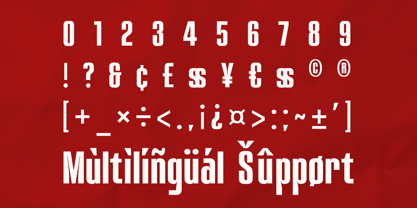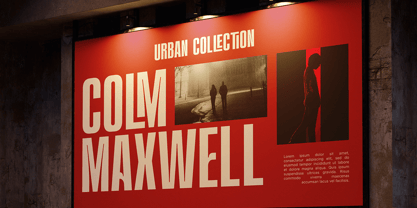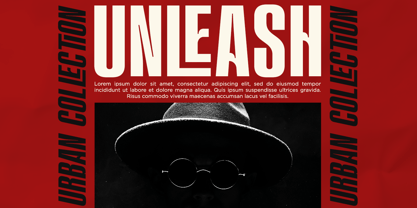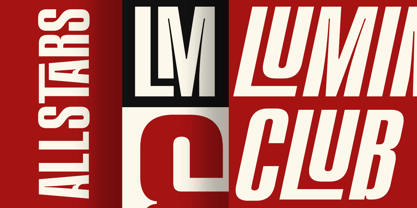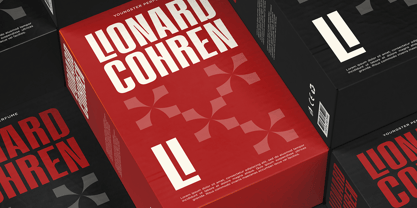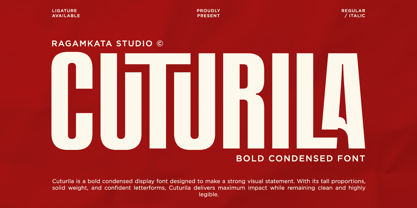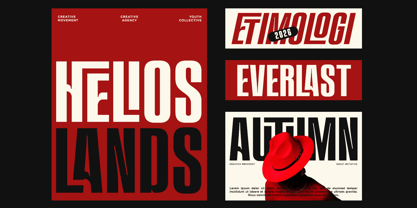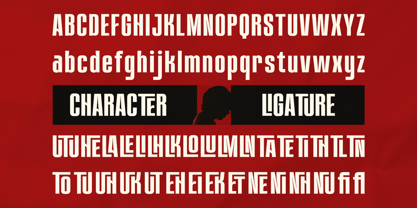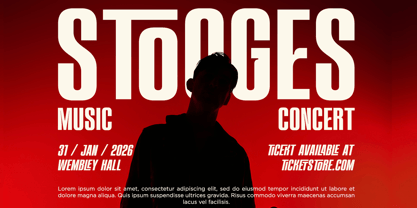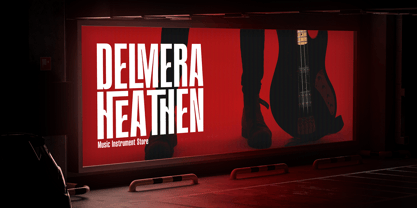
Cuturila
by RagamKata
The Cuturila Font Family was designed by Yogiswhara Dio Prakoso Riadi and published by RagamKata. Cuturila contains 2 styles and family package options. More about this family
Cuturila is a bold condensed display font designed to create an immediate visual impact. With its tall proportions and strong vertical rhythm, this typeface captures attention at first glance, making it perfect for designs that require confidence and clarity. Its clean structure and solid weight ensure excellent legibility, even at large sizes, while subtle details and balanced spacing maintain a modern and professional appearance. Cuturila offers a powerful presence without compromising readability, making it an ideal choice for striking headlines and bold typographic compositions. This font is perfect for branding, posters, logos, packaging, editorials, and advertising, catering to designers who want their message to resonate strongly, directly, and memorably. Whether utilized in print or digital projects, Cuturila delivers a bold statement with refined precision. Thank You for your Visit ! Ragamkata
Designers: Yogiswhara Dio Prakoso Riadi
Foundry: RagamKata